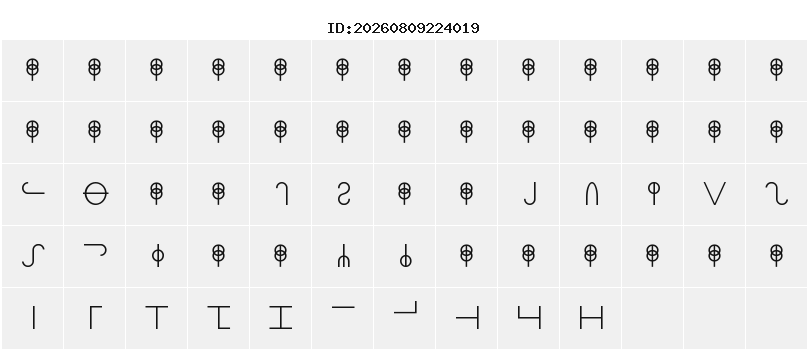
• Font Name: Paklikale
• Designer: Peter Philip Crisci
• Description: This font is for typing in the native script of the artificial language Paklikale.
Paklikale.ttf is a modern, elegant sans-serif font designed for ultimate readability and visual harmony. Perfect for branding, headlines, web design, and print materials.